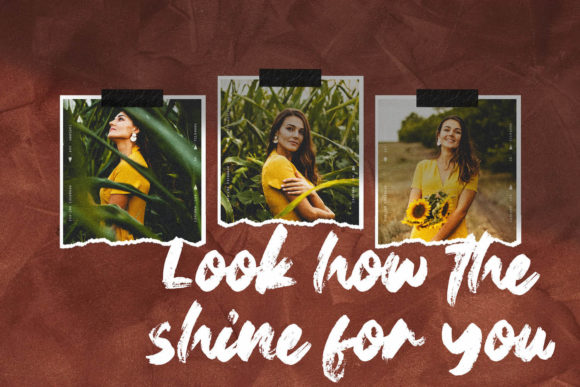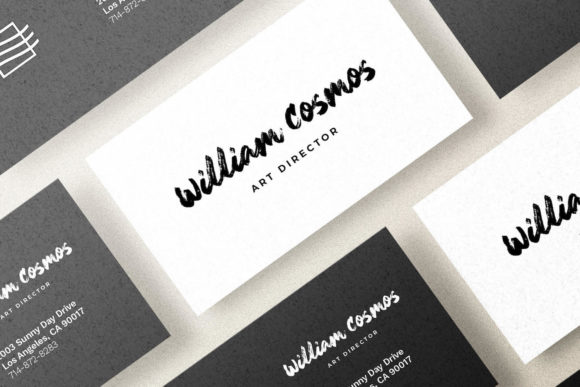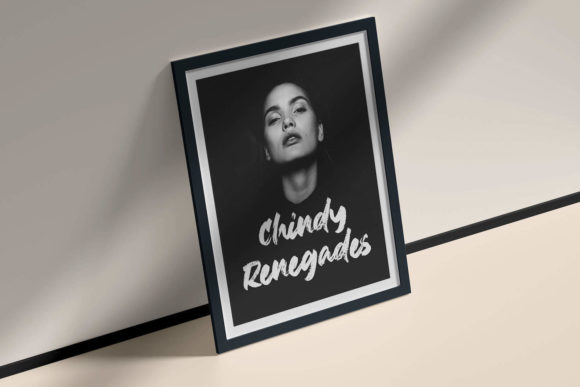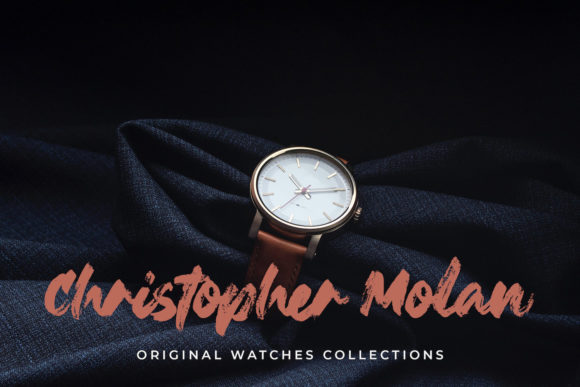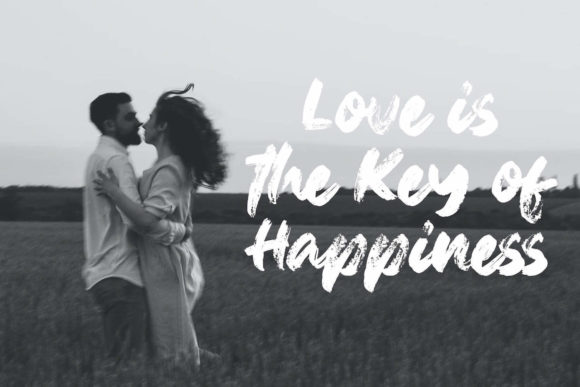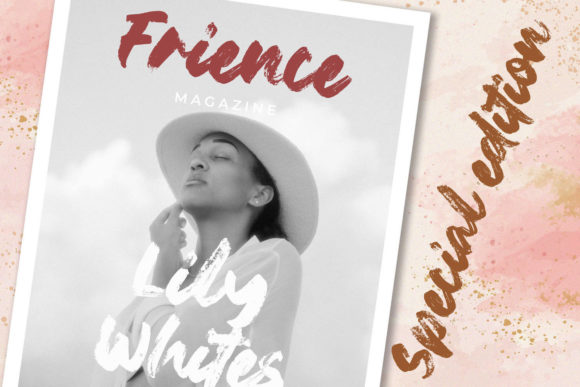
Introduction to Janji Dilan Font
As a designer, there’s nothing quite like the rush of excitement when you stumble upon the perfect font for your creative project. It’s that moment when everything clicks, and your ideas start to take shape. For many designers, that perfect font is often a high-quality display font that adds a touch of whimsy and personality to their work.
Enter the Janji Dilan Font, a cool and brushed display font that’s perfect for bringing a smile to your audience’s faces. With its unique style and transparent background, this font is a valuable resource for designers looking to create engaging and eye-catching designs.
Whether you’re working on a children’s game, a cartoon-related design, or simply want to add a touch of joy to your quotes, titles, or brand names, the Janji Dilan Font is a great choice. And the best part? It’s available for free download, making it an accessible design resource for designers of all levels.
Key Features of Janji Dilan Font
- High-quality font with a beautiful, elegant design suitable for creative projects
- Transparent background, making it easy to use on various backgrounds and designs
- Designed with a unique, handwritten style that adds a personal touch to any design
- Perfect design resource for romantic and love-themed projects, including Valentine’s Day and wedding invitations
Honest Review: Janji Dilan Font
I recently stumbled upon the Janji Dilan Font, and I’m excited to share my thoughts with fellow designers. This font has been gaining popularity in the design community, and I wanted to dive deeper to see what all the fuss is about.
- ✨ High-quality design: The Janji Dilan Font boasts an elegant and refined design that’s perfect for creative projects.
- ✨ Transparent background: This feature makes it easy to layer and manipulate the font, allowing for a wide range of design possibilities.
- ⚠️ Limited font styles: While the font is beautiful, it’s a bit limited in terms of font styles, which might not be ideal for designers who prefer a wider range of options.
- ⚠️ Not ideal for large text: Due to its elegant design, the font might not be the best choice for large text or headings, as it can become difficult to read.
Overall, I’m impressed with the Janji Dilan Font, and I think it’s a great addition to any designer’s toolkit. While it may have its limitations, its high-quality design and transparent background make it a valuable resource for creative projects.
Tips for Getting the Most Out of Janji Dilan Font
For the best results, use the Janji Dilan Font on a transparent background to create a clean and modern design. You can also experiment with different font sizes and colors to add visual interest to your design. This font is a great resource for any creative project, from brochures to social media graphics.
The Janji Dilan Font is suitable for a wide range of designs, including logos, business cards, and marketing materials. Its high-quality design and transparent background make it an ideal choice for designers looking for a free download resource.